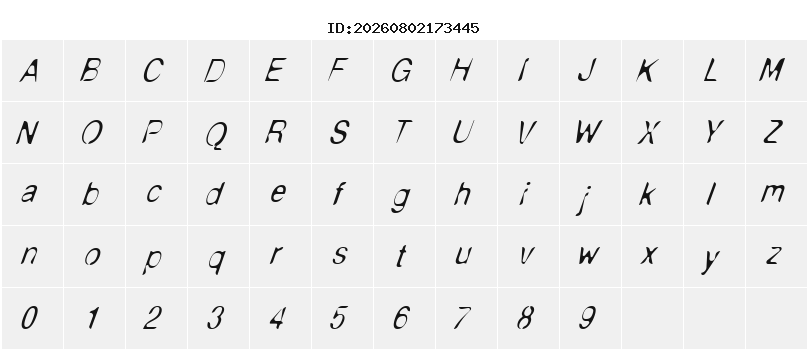
About NudE Anorexic Italic.ttf
NudE Anorexic Italic.ttf is a modern, elegant sans-serif font designed for ultimate readability and visual harmony. Perfect for branding, headlines, web design, and print materials.